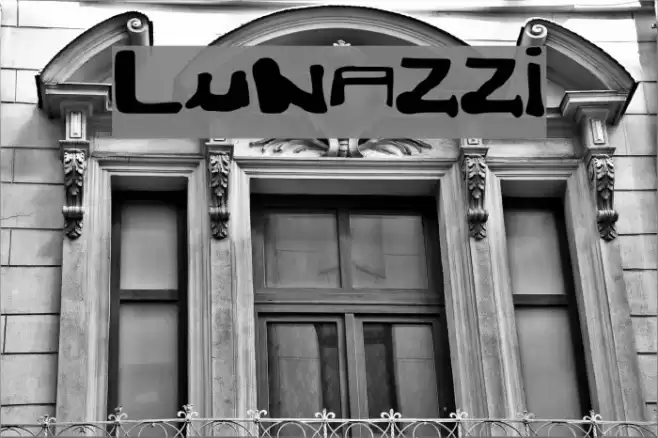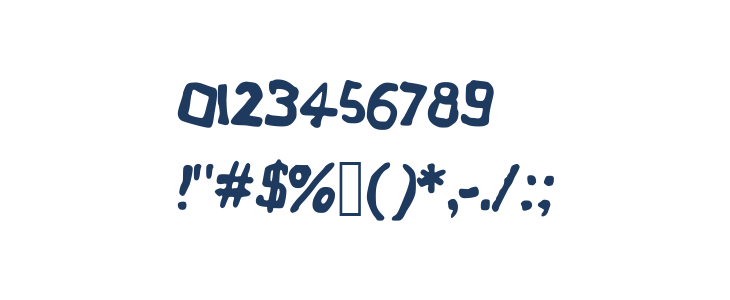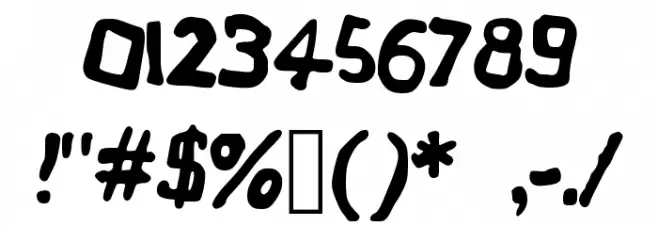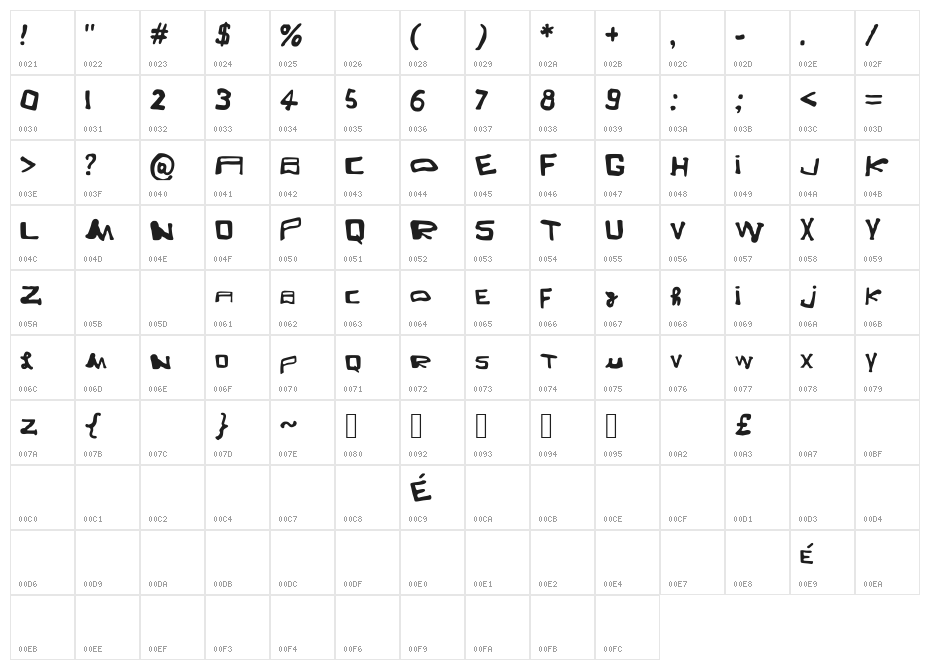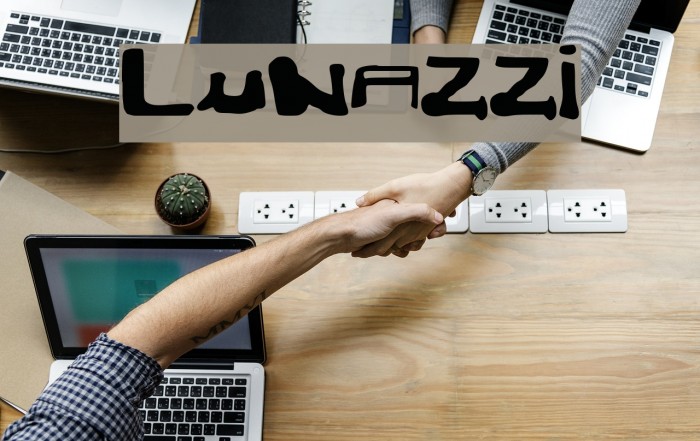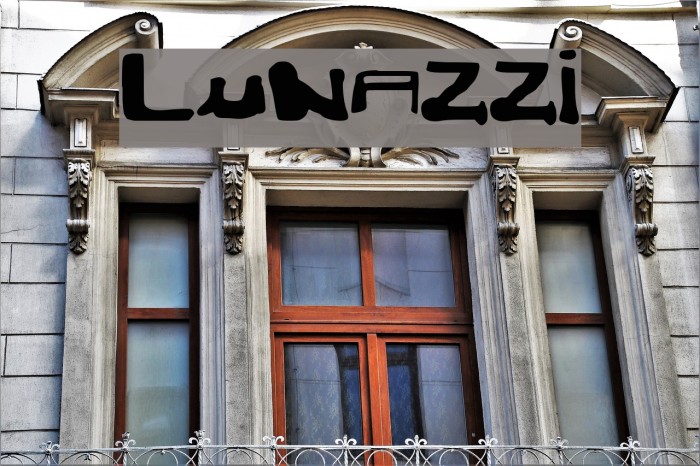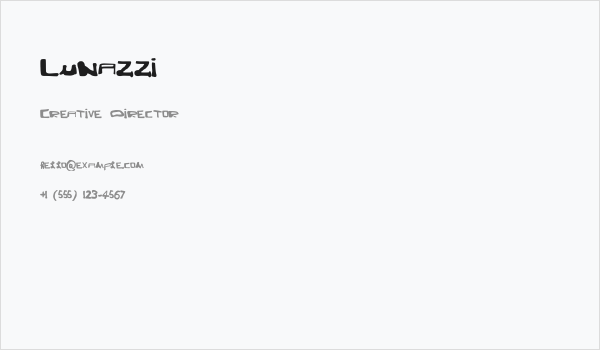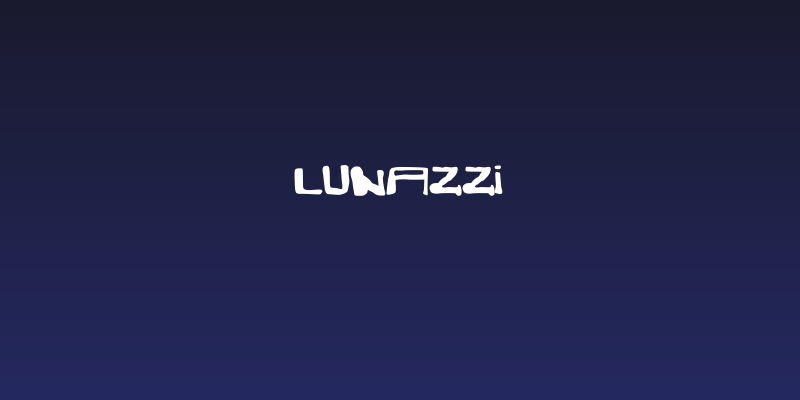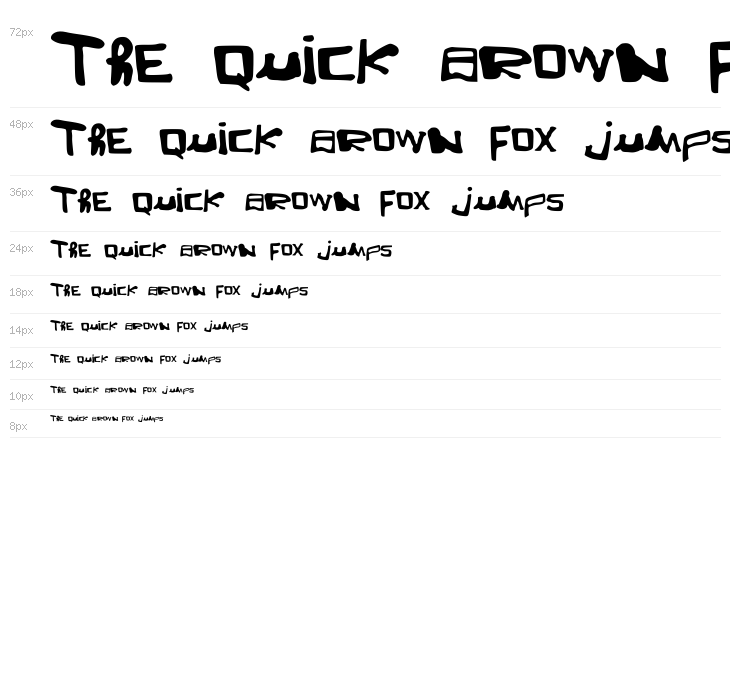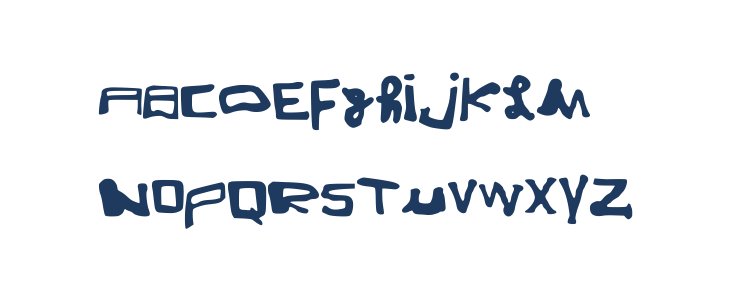
Lunazzi Font
Lunazzi Description
This font exhibits a bold and playful style with a distinctly hand-drawn appearance. The characters are irregular and organic, with varying stroke thickness that adds a dynamic and lively feel. The uppercase and lowercase letters maintain a consistent whimsical quality, while the numbers and special characters follow the same playful design. The overall look is informal and artistic, making it suitable for creative and expressive projects. The font's unique character shapes and uneven lines give it a distinctive personality that stands out.
A bold, playful, and hand-drawn font with irregular, organic shapes from Distorted Eroded fonts.
- Proposed Projects: Ideal for children's books, creative posters, artistic branding, and playful invitations.
- Overall Style: Playful, Artistic